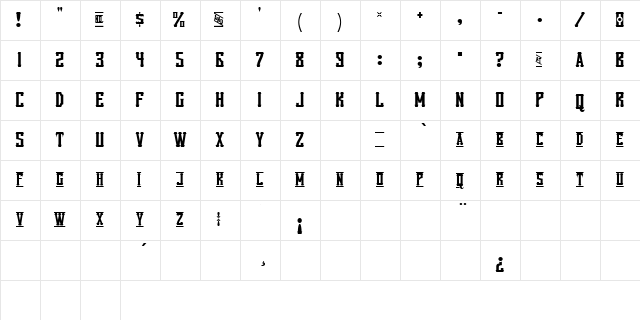
Vanilla Whale Regular
Design Context for Vanilla Whale Typeface
Vanilla Whale is a composed and adaptable typeface that performs quietly and consistently across a wide range of design contexts.